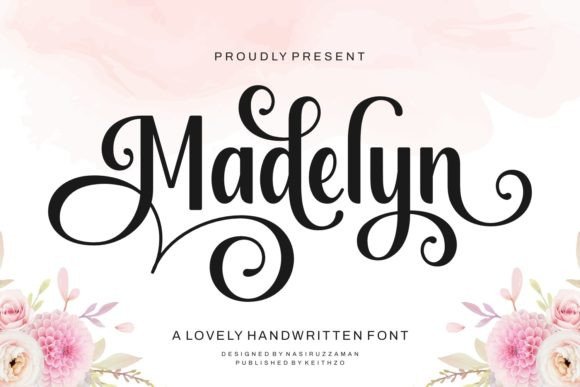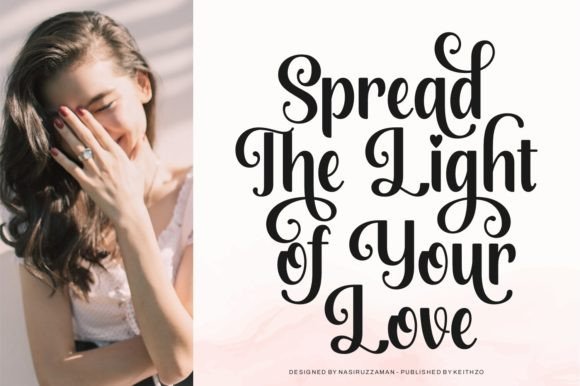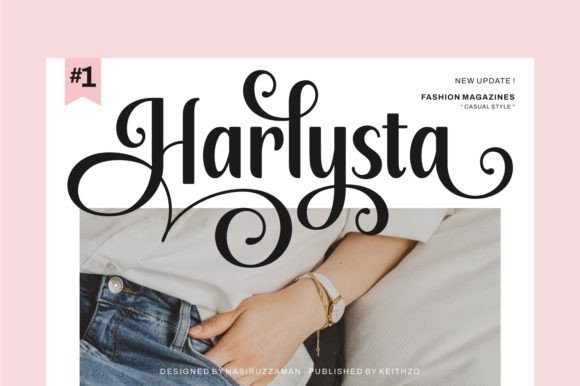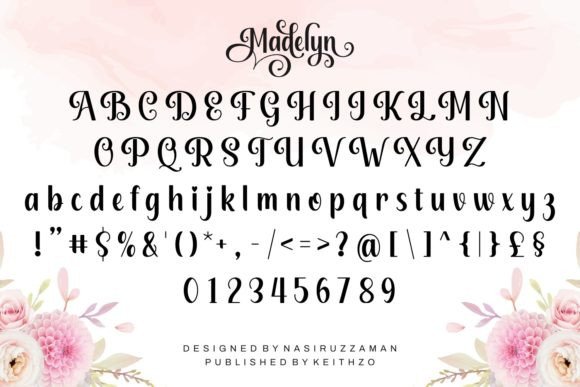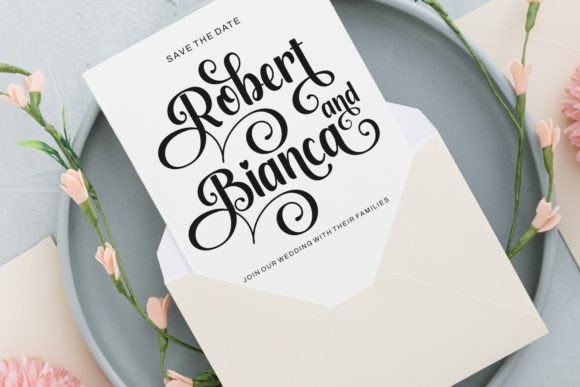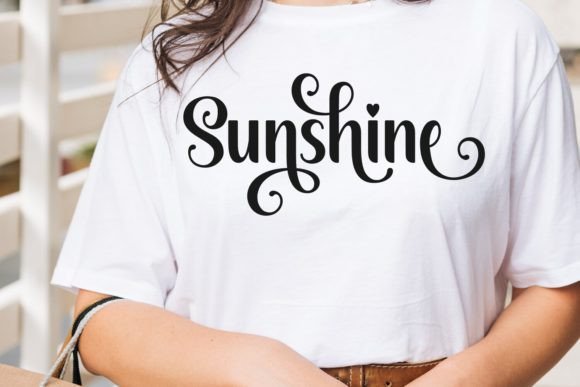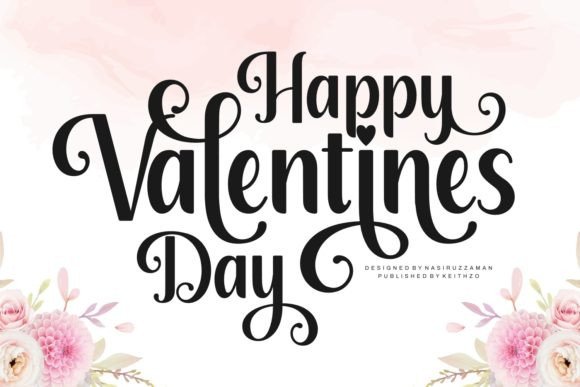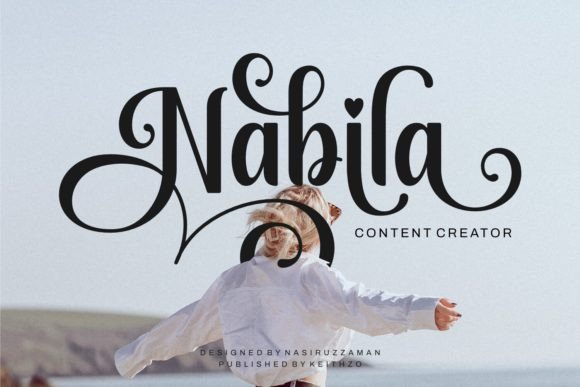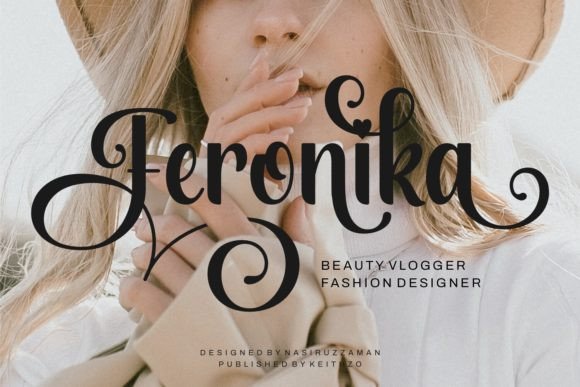
Madelyn Font
Madelyn is a lovely handwritten font that adds a touch of warmth and character to your designs. With its graceful curves and gentle strokes, this font brings a friendly and inviting feel to any project. Whether you’re creating greeting cards, or invitations, or simply want to infuse a handwritten charm into your work, Madelyn is the perfect choice. Embrace the beauty of simplicity with this delightful font that effortlessly captures the essence of handwritten elegance.